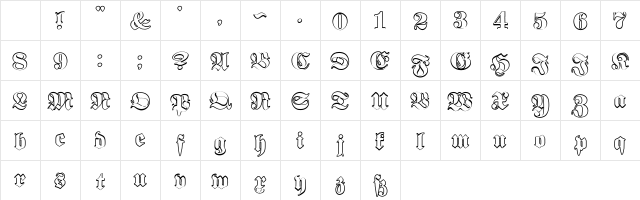
Complete Proclamate Outline Heavy glyph index. Displaying only characters natively supported by Proclamate Outline Heavy font.
Proclamate Outline is built around its visual character rather than neutral utility - its distinctive forms are designed to make an impression at display sizes.
Font Pairing: Pair with a clean neutral sans-serif for body copy to let Proclamate Outline's character lead without overwhelming the composition.
Pro Tip: Use Proclamate Outline exclusively at display sizes - it was designed to be seen, not read at length. Let a neutral companion handle body copy.